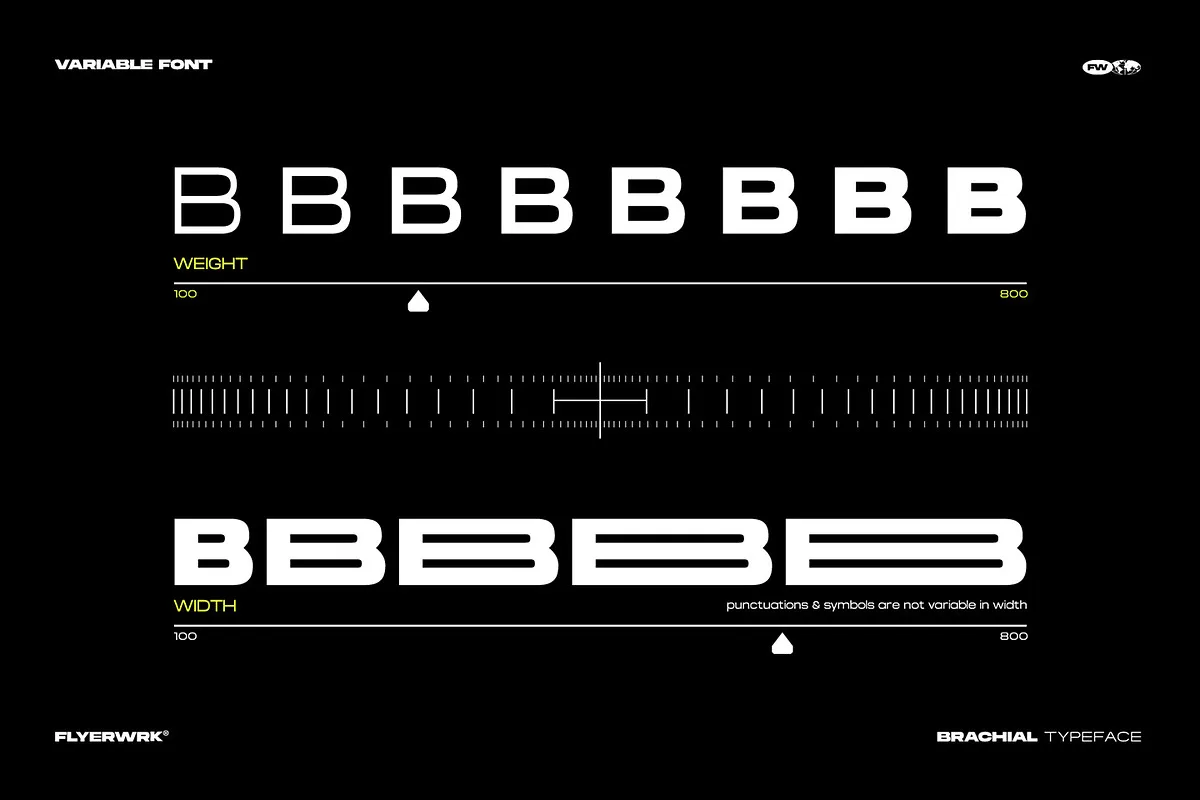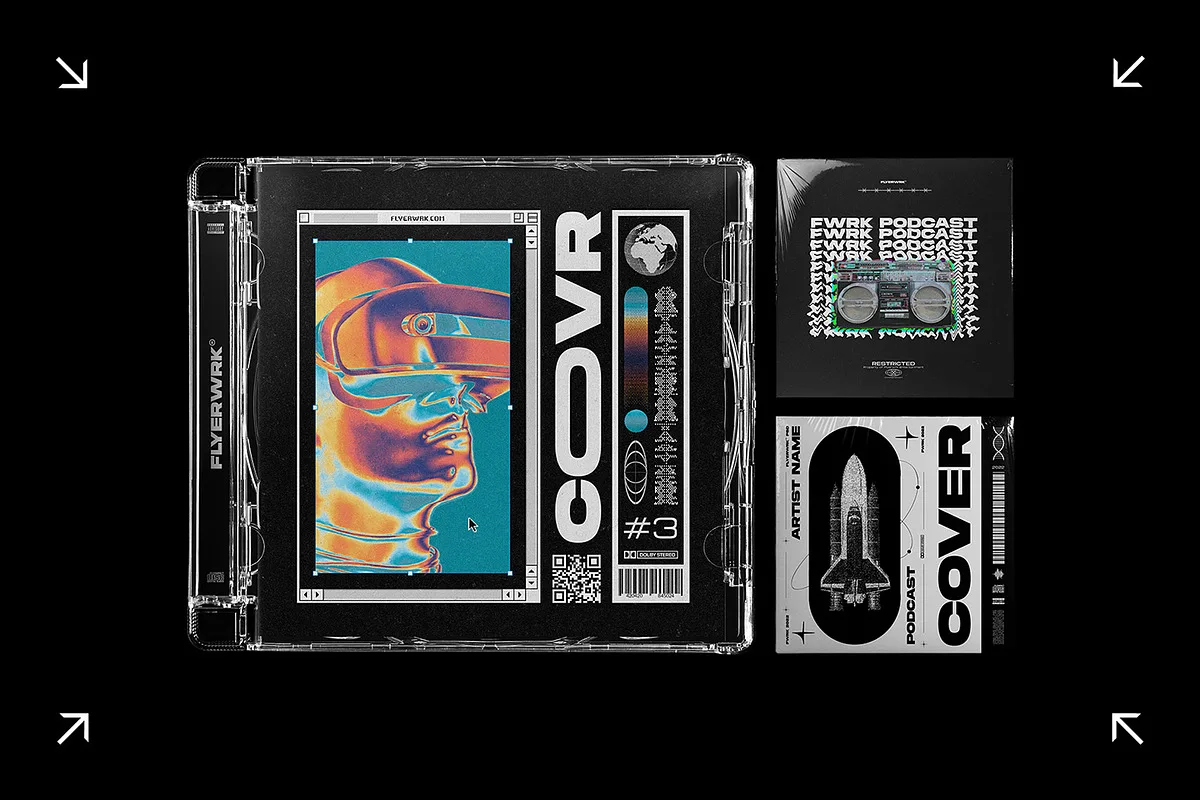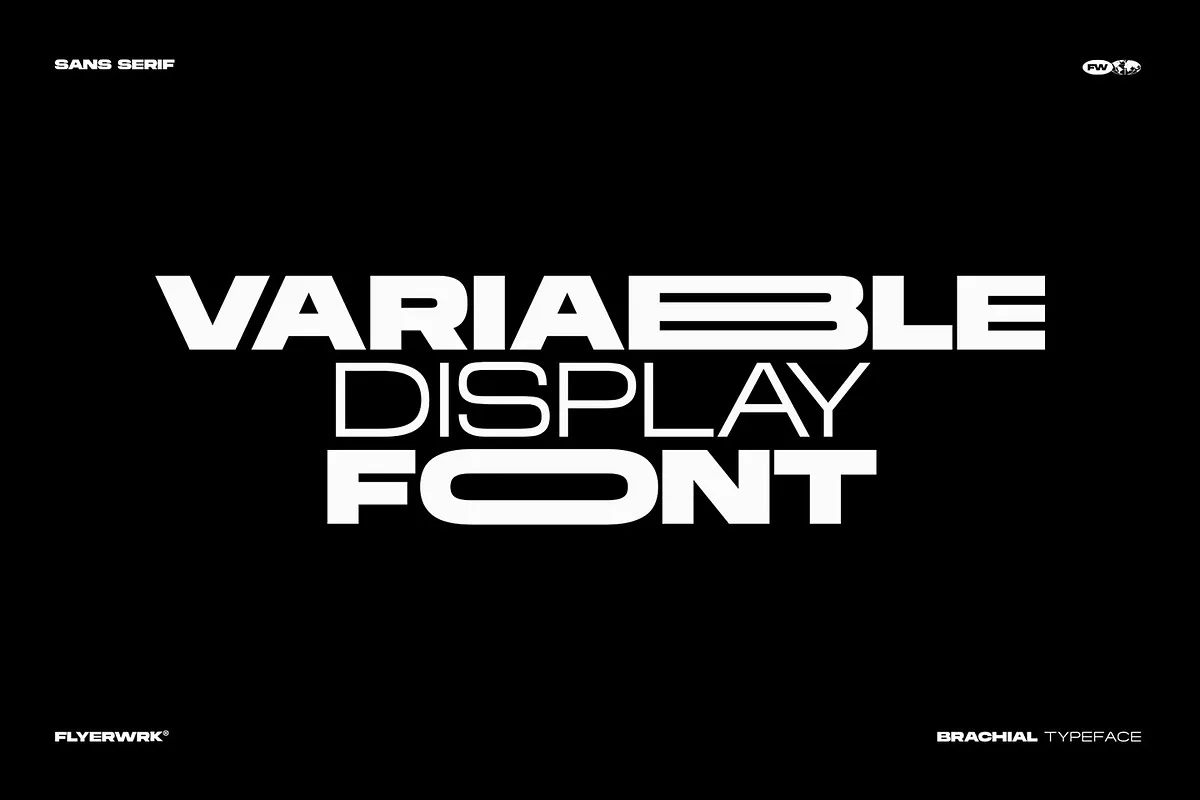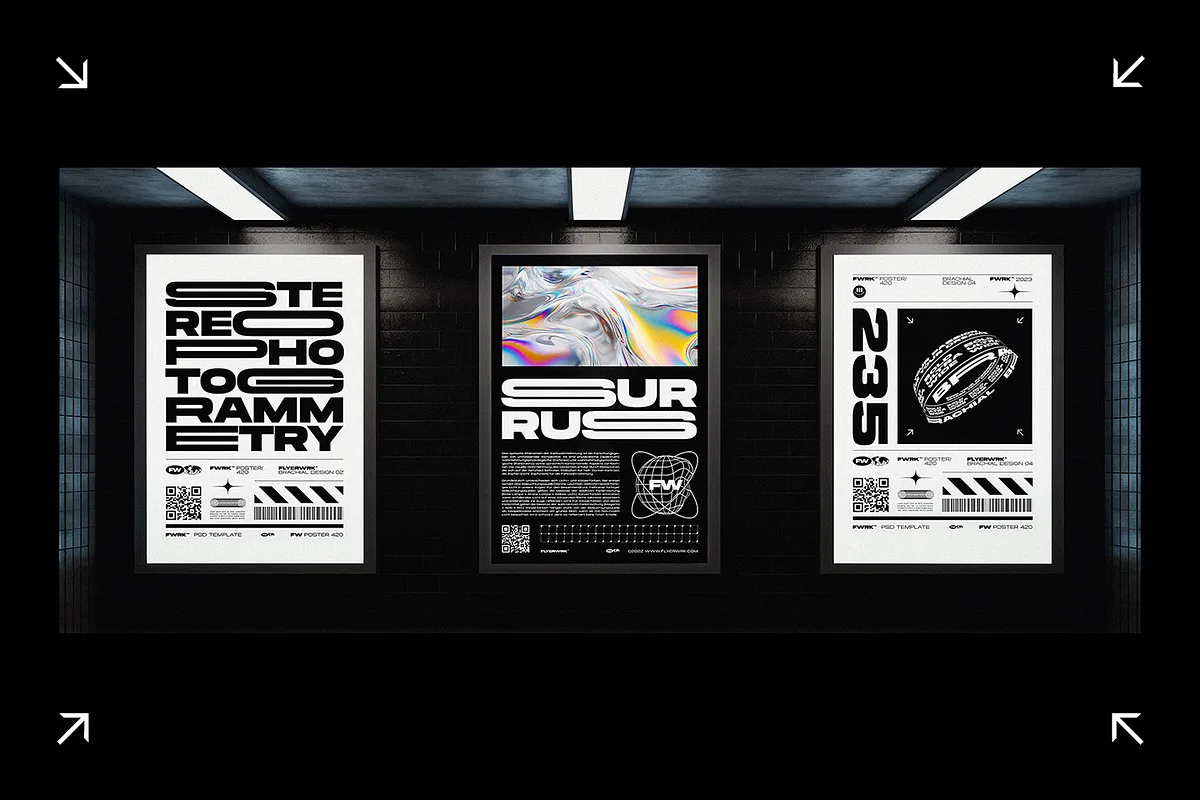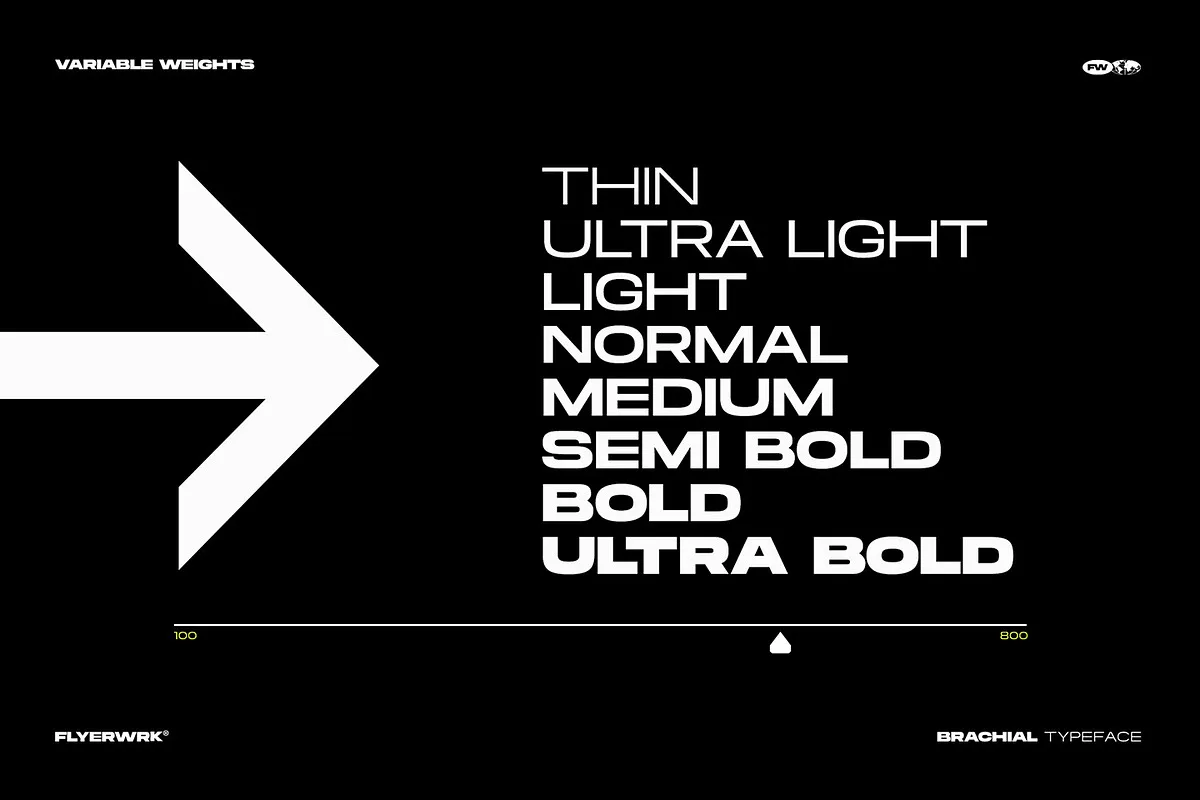
Brachial Font
Brachial is an ultra-wide geometric sans serif typeface designed for bold, modern, and high-impact typography. Inspired by retro-futurism, Brutalist architecture, and Bauhaus design principles, this font delivers a strong visual identity that stands out in any creative project.
Built for versatility, Brachial is perfect for headlines, logos, branding, editorial layouts, posters, and album covers. Its wide proportions and clean geometric structure make it ideal for creating striking, attention-grabbing designs.
This font family includes 40 styles, featuring 5 widths and 8 weights, along with a variable font file that allows seamless customization of width and weight. Whether you need condensed or expanded layouts, Brachial gives you full control over your typography.
With over 400 glyphs and multilingual support, Brachial is suitable for global projects using an extended Latin character set.
• Ultra-wide geometric sans serif font
• 40 font styles (5 widths × 8 weights)
• Variable font included (adjust width & weight)
• 400+ glyphs with extended Latin support
• Multilingual support
Best For:
• Branding & visual identity
• Logo design
• Posters & album covers
• Editorial & magazine layouts
• Modern & experimental typography